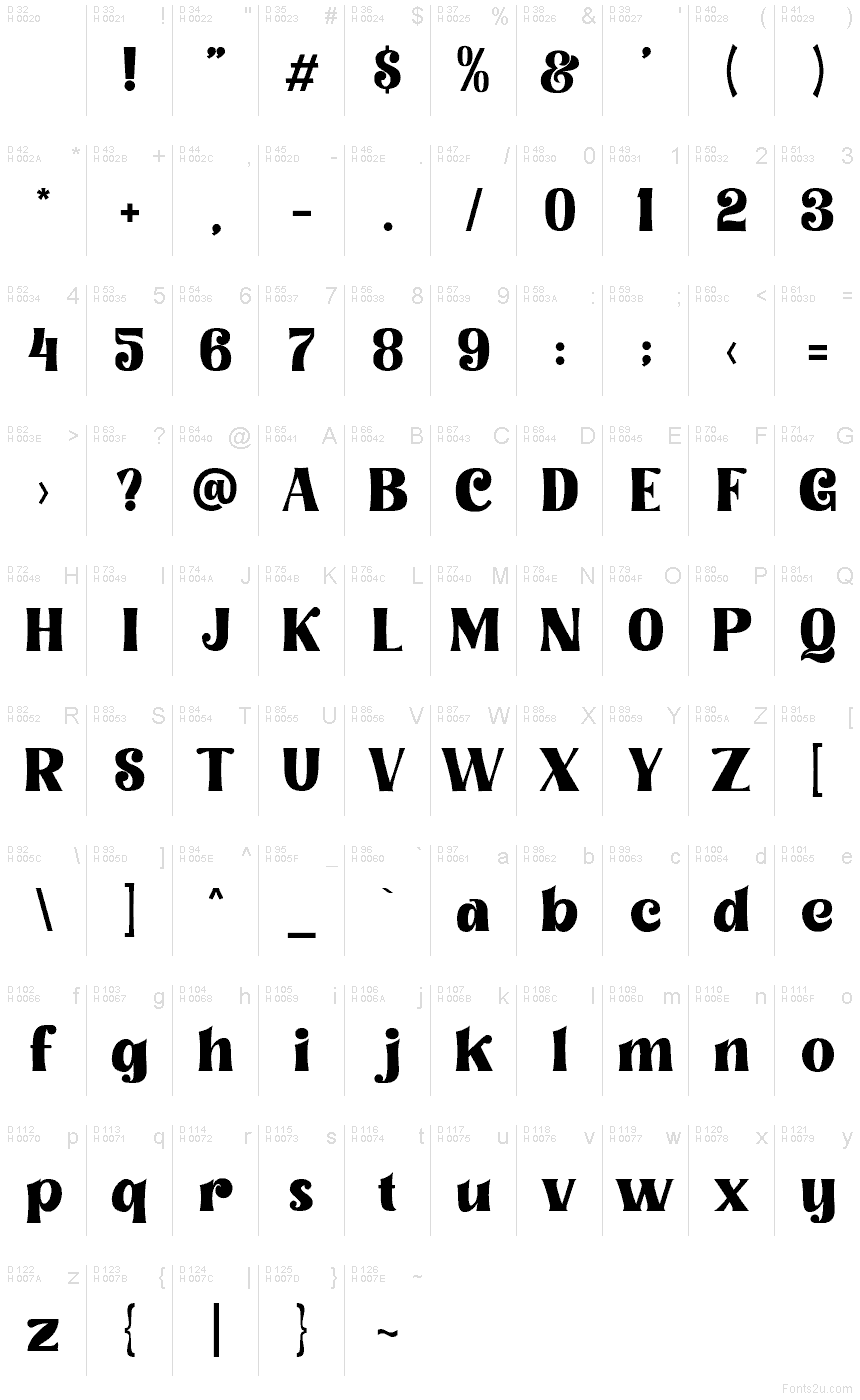
Bouden
Bouden font by Puri Creative is a free retro display typeface that sways between thick, inky curves and crisp wedge-like cuts. Its letters feel sculpted—broad shoulders, tapered strokes, and a playful tilt that gives headlines a lively, almost sung cadence. The result is a bold voice that reads smoothly at size, with enough quirk to stick in memory without turning messy.
Using Bouden, you’ll get instant character for posters, event flyers, cafe menus, boutique packaging, album art, and brand marks. The generous forms create a steady rhythm that holds up in tight layouts and busy color palettes. For balance, pair this free font with a straightforward grotesque sans, and set Bouden big with slightly looser tracking for maximum swagger.